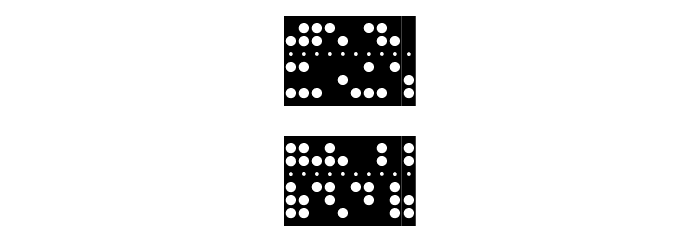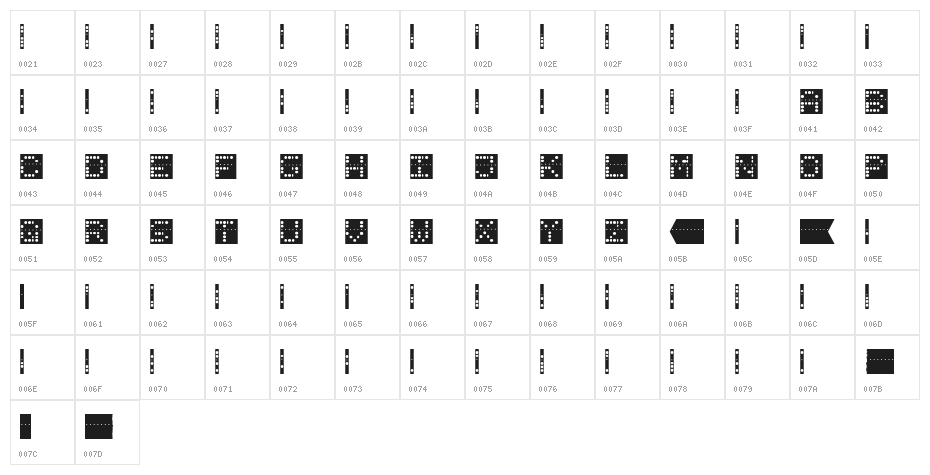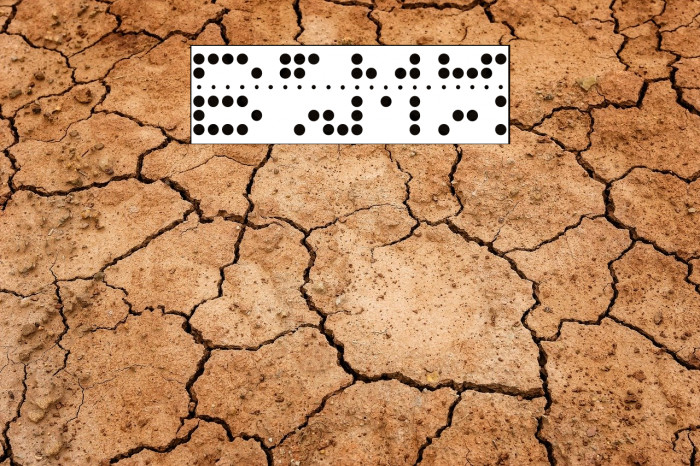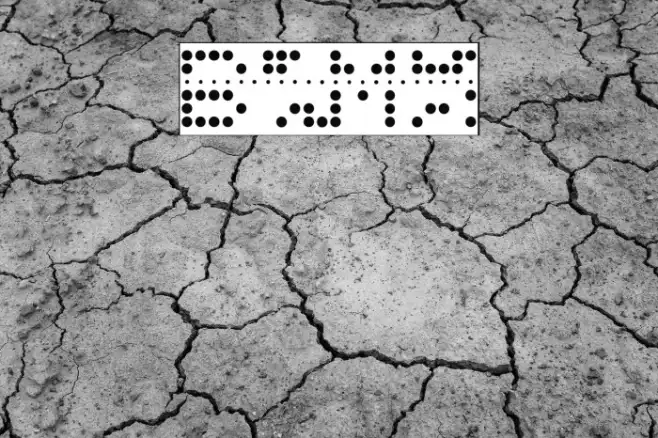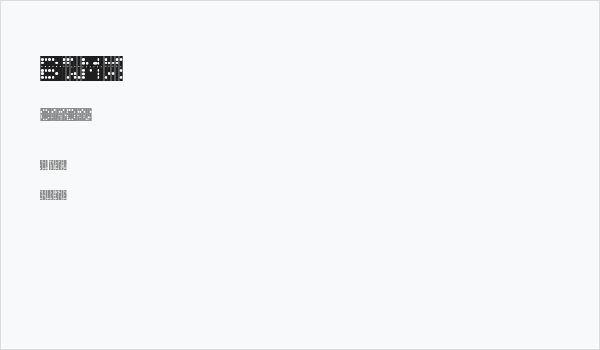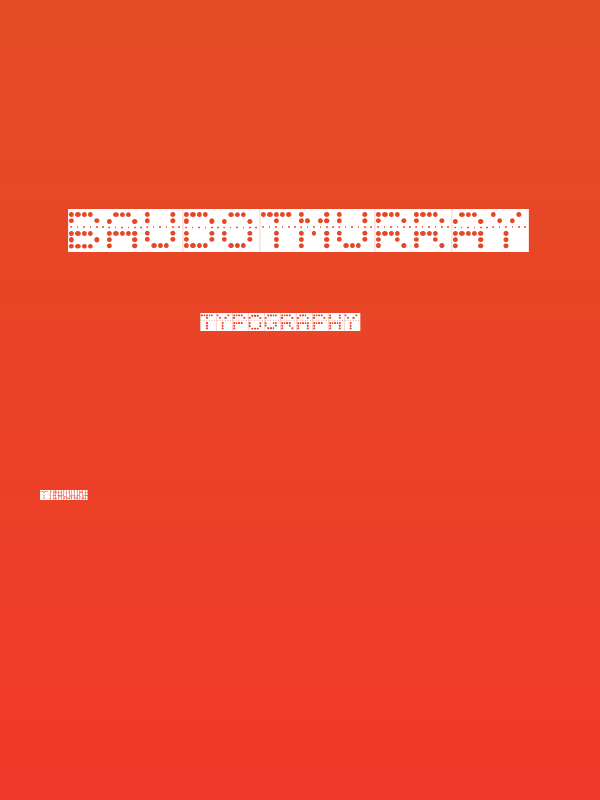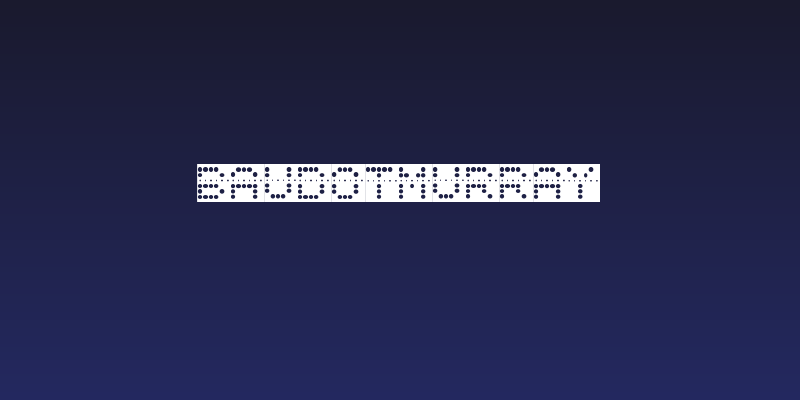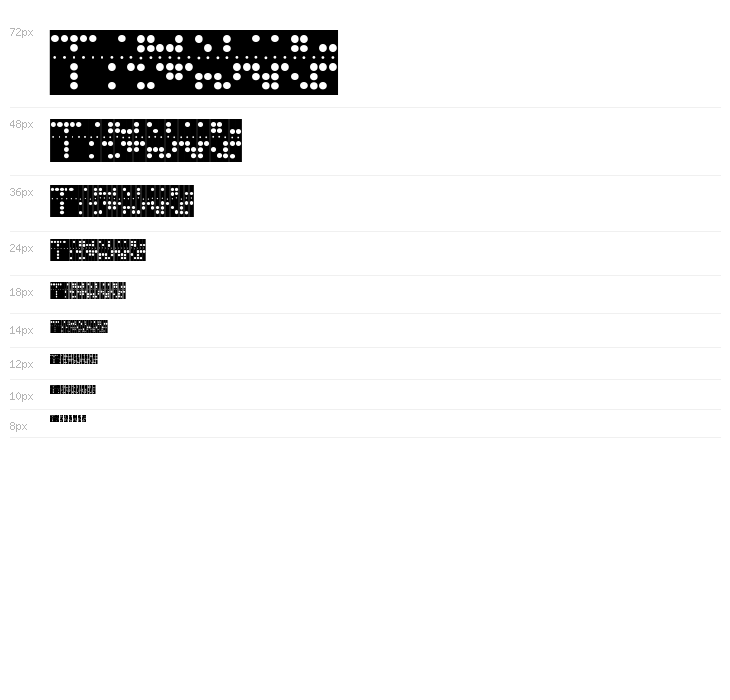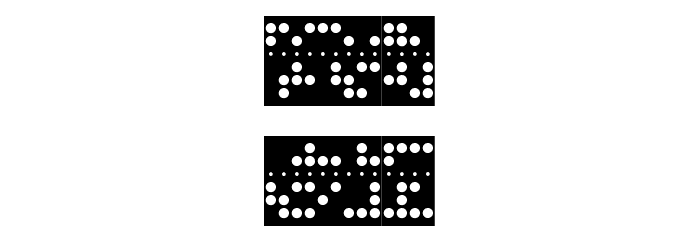
BaudotMurray Font
BaudotMurray Description
This font is a unique representation of characters using a dot matrix style, reminiscent of early telegraph and teletype systems. Each character is formed by a grid of dots, creating a retro, digital appearance. The design is highly geometric, with each letter and number distinctly separated by a consistent spacing, enhancing readability despite the unconventional style. The font evokes a sense of nostalgia for early computing and communication technologies, making it ideal for projects that aim to capture a vintage or technological aesthetic. Its distinctiveness lies in its ability to convey information in a visually engaging manner, while maintaining a structured and organized appearance.